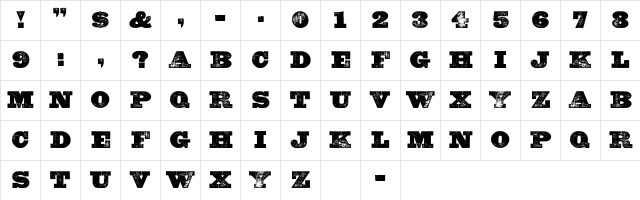
Gatlin Bold WF Regular
Designer: Walden Font Co.
Design Context for Gatlin Bold WF
Gatlin Bold WF is a composed and adaptable typeface that performs quietly and consistently across a wide range of design contexts. Its bold stroke weight gives it real presence on the page.